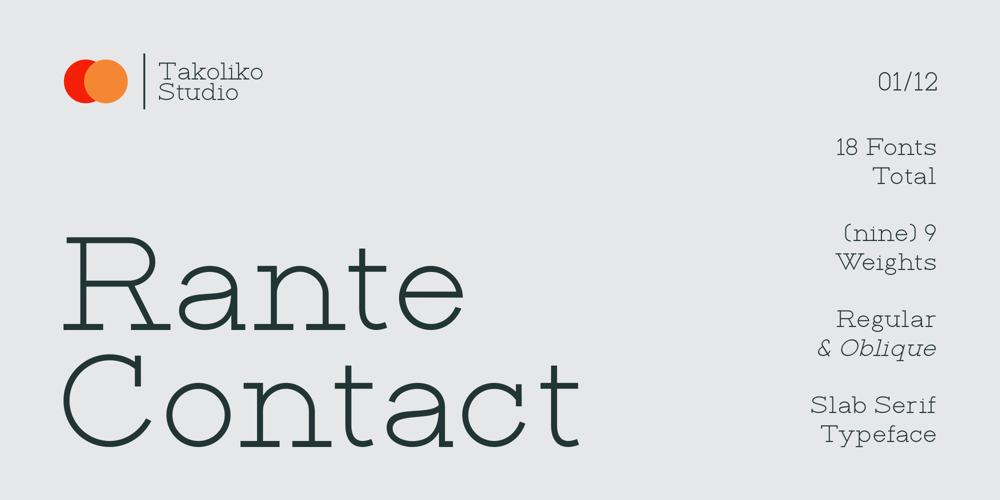
Rante Contact Font Family was designed by Deni Hidayat and published by takoliko. Rante Contact contains 18 styles and family package options. Introducing Rante Contact, a slab serif typeface characterized by its versatility and simplicity. Built solid and brimming with confidence, this font perfects standard and oblique styles alike. Boasting a spectrum of nine variable weights, Rante Contact is a testament to diverse design. It stands as an unfaltering companion to your creative pursuits, effectively enhancing your projects with its resolute and promising personality.